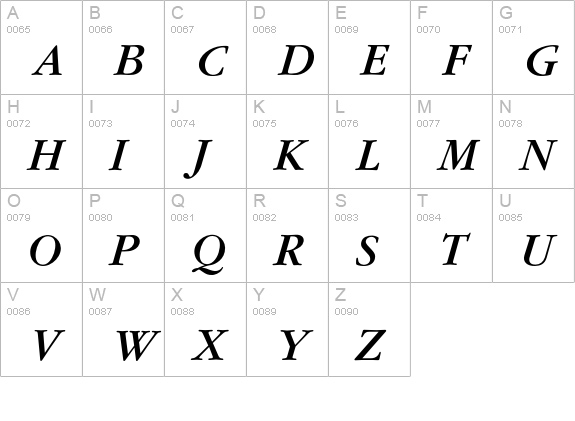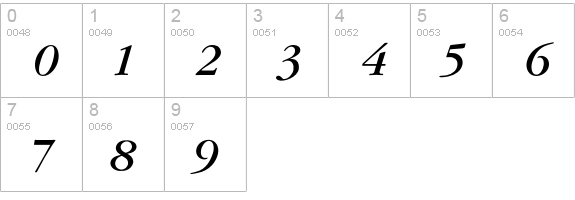
GaramondBookItalic Font Details
GaramondBookItalic is a stunning font that exudes elegance and sophistication. Its flowing curves and delicate slant make it perfect for adding a touch of grace to any design project. Whether you're creating wedding invitations, branding materials, or a beautifully designed website, GaramondBookItalic will effortlessly elevate the overall aesthetic. This font's timeless charm is enhanced by its italic style, which adds a subtle sense of movement and grace to each letterform. The thin strokes and tapered serifs create a harmonious balance between tradition and modernity, making GaramondBookItalic a versatile choice for both classical and contemporary designs. One of the best features of GaramondBookItalic is that it is freely available to download at FontsMarket.com. This means that you can easily access and use this font without any restrictions or limitations. Whether you're a professional designer or a passionate hobbyist, having access to high-quality fonts like GaramondBookItalic can greatly enhance your creative projects. The clean and legible nature of GaramondBookItalic also makes it incredibly versatile and suitable for a wide range of applications. From body text in books and magazines to headlines and captions in advertising materials, this font offers exceptional readability without compromising on style. So, why settle for ordinary when you can elevate your designs with the timeless beauty of GaramondBookItalic? Download it for free at FontsMarket.com and let this exceptional font bring a touch of elegance to your creative endeavors.